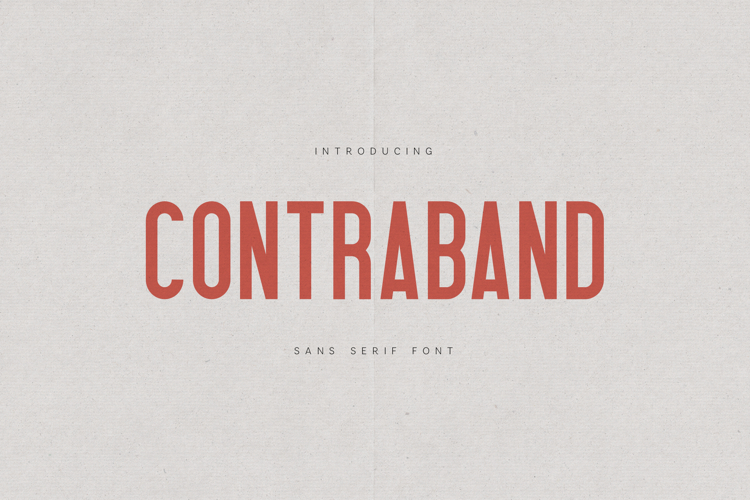
Modern Heritage Minimalist Sans Serif Font
Contraband is a bold condensed sans serif font designed for strong, modern typography. With tall proportions, clean geometry, and confident letterforms, it delivers clarity and impact across headlines, posters, branding, and editorial layouts.
Its minimal yet expressive design makes Contraband ideal for contemporary branding, magazines, packaging, signage, and statement typography. The font includes uppercase and lowercase characters, numerals, punctuation, and multilingual support, making it reliable for both print and digital projects. Delivered in OTF format, ready for professional use.